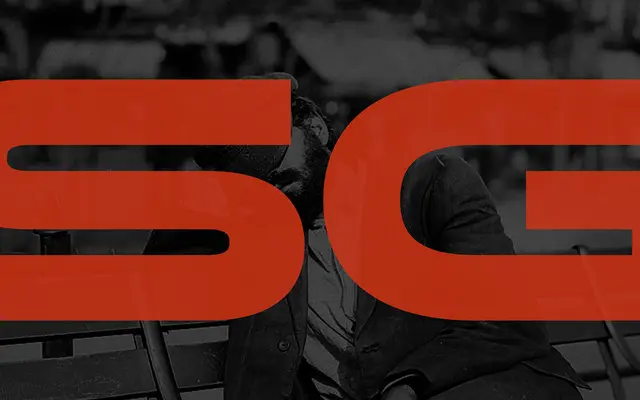
Stereo Gothic
A wide, undecorated Gothic sans focused on legibility across a range of weights.
Built around a wide proportion with no ornamental detail, Stereo Gothic prioritises clean, functional letterforms. The range of weights gives it practical flexibility for display and identity work. Its straightforward construction makes it an easy choice where clarity and breadth are the primary requirements.
A wide, undecorated sans-serif with a range of weights, fitting squarely into the Gothic sans tradition with its emphasis on legibility and clean functional form.